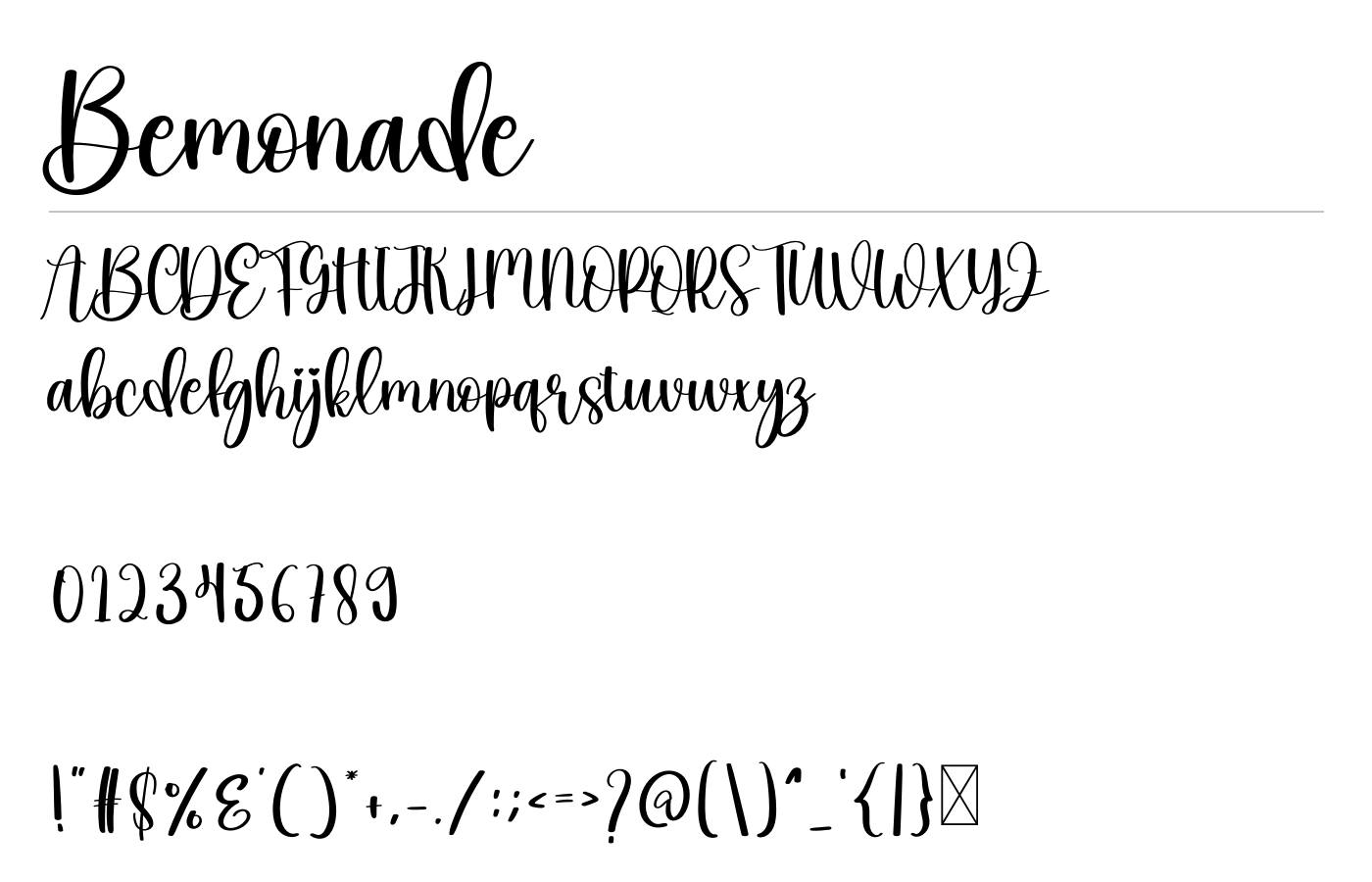
Bemonade is a charming script font with a playful and elegant personality, featuring smooth, flowing strokes and a medium weight that balances readability with decorative flair. Its tall, slightly narrow letterforms and unique swashes make it perfect for creative branding, invitations, and standout headlines where a personal, handcrafted touch is desired. Ideal for fashion, lifestyle, and boutique projects, Bemonade adds a stylish and friendly vibe that feels both modern and approachable.
Bemonade Font
About Bemonade Font